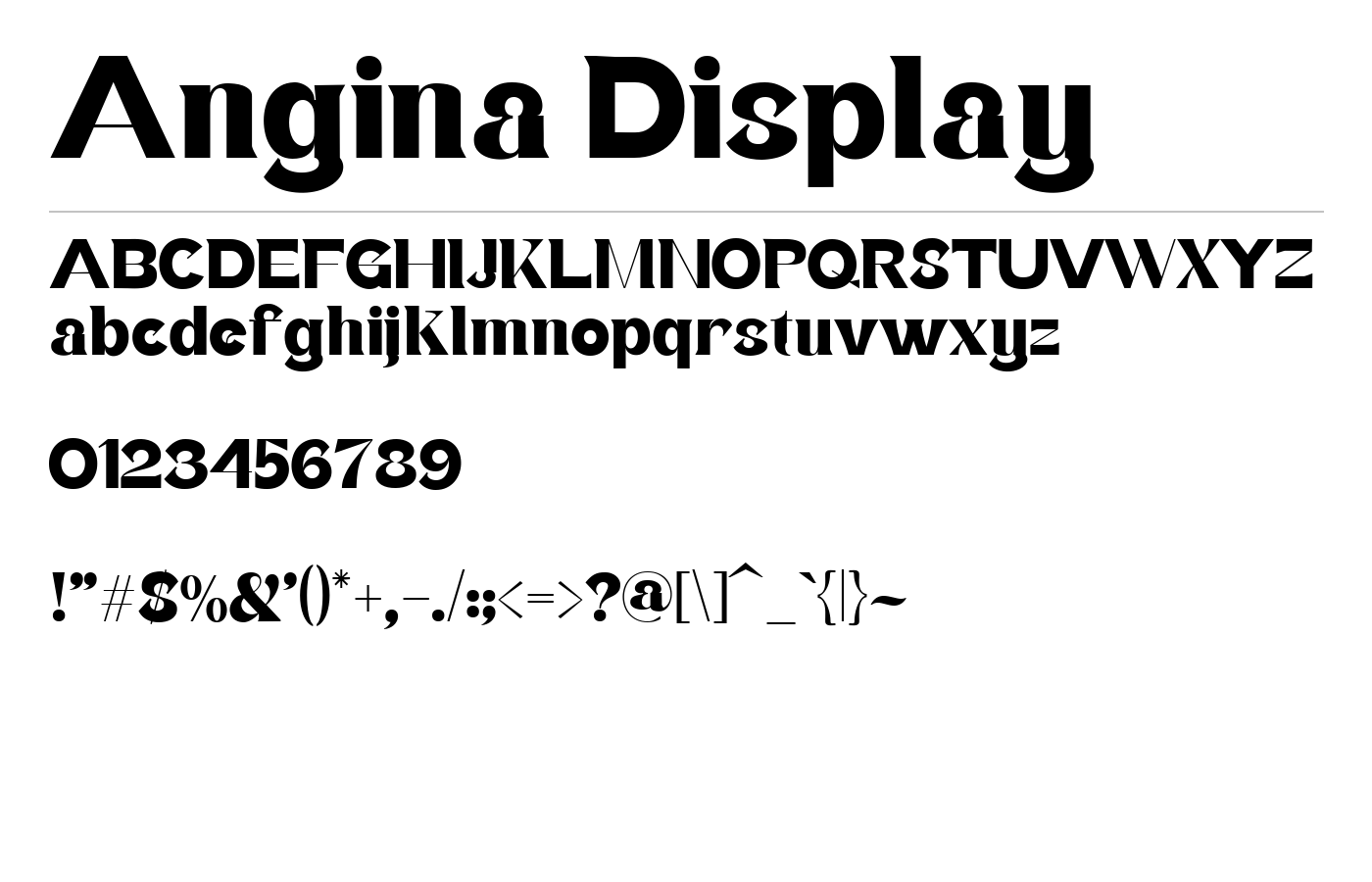
Angina Display is a bold serif font with a strong presence and distinctive geometric shapes, featuring high contrast between thick and thin strokes. Its unique letterforms, such as the single-story 'a' and stylized ampersand, give it a modern yet classic feel that works well for impactful headlines, branding, and display use in fashion or luxury contexts. This font brings a confident and elegant tone to any design where standout style and readability are key.
Angina Display Font
About Angina Display Font